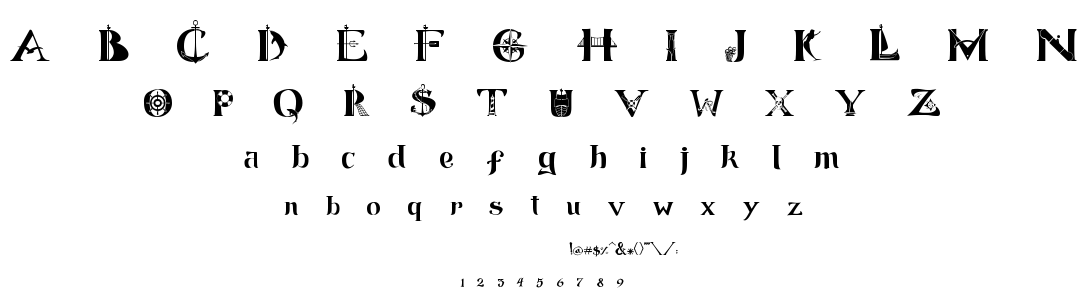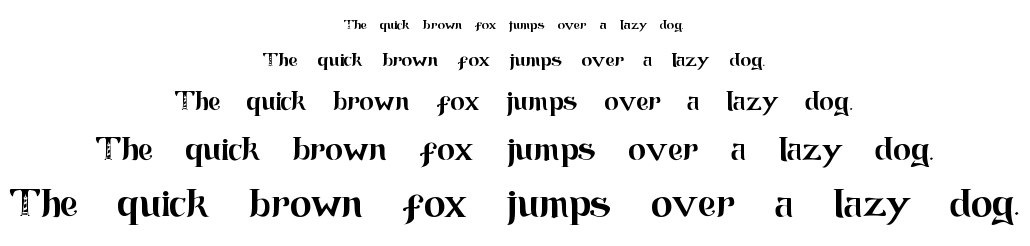
ManicSea fontManicSea is a nautical themed font I’ve created just for fun. It’s free for personal use, but if you are interested in commercial use, please contact me at sabanovicid@yahoo.com